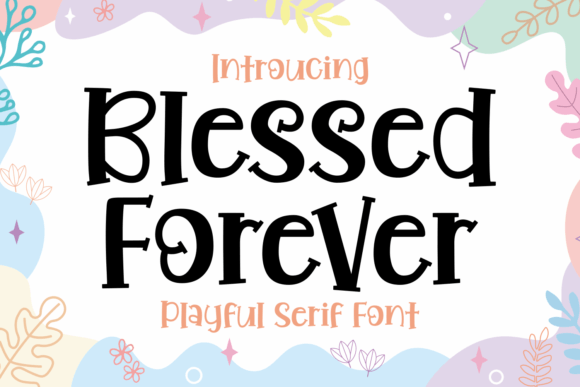
Blessed Forever Font: The Epitome of Playful and Childish Typography
The Blessed Forever Font is a unique and charming typeface that embodies the carefree spirit of childhood. With its rounded edges, bouncy baseline, and slightly tilted letters, this font is reminiscent of a child’s handwriting, evoking feelings of playfulness and excitement. In this article, we’ll explore the characteristics of the Blessed Forever Font, its uses, and why it’s perfect for kids’ projects and whimsical designs.
Characteristics of Blessed Forever Font
The Blessed Forever Font is a playful and childish typeface that boasts several distinctive features. Some of its key characteristics include:
- Rounded Edges: The font’s rounded edges give it a soft and gentle appearance, making it perfect for designs that require a friendly and approachable tone.
- Bouncy Baseline: The bouncy baseline of the font adds to its playful and energetic feel, creating a sense of movement and dynamism.
- Slightly Tilted Letters: The letters in the Blessed Forever Font are slightly tilted, which gives the impression of excitement and playfulness.
Uses of Blessed Forever Font
The Blessed Forever Font is a versatile typeface that can be used in a variety of design projects. Some of its most popular uses include:
- Kids’ Projects: The font’s playful and childish nature makes it perfect for kids’ projects, such as book covers, posters, and educational materials.
- Whimsical Designs: The font’s whimsical and playful feel makes it ideal for designs that require a touch of fantasy and imagination, such as greeting cards, invitations, and packaging.
- Branding and Advertising: The Blessed Forever Font can also be used in branding and advertising campaigns that target children or require a playful and youthful tone.
Why Choose Blessed Forever Font?
There are several reasons why the Blessed Forever Font stands out from other typefaces. Some of its key advantages include:
- Uniqueness: The font’s unique and playful design makes it stand out from more traditional typefaces.
- Legibility: Despite its playful nature, the Blessed Forever Font is highly legible, making it easy to read and understand.
- Versatility: The font’s versatility makes it suitable for a wide range of design projects, from kids’ projects to whimsical designs.
Tips for Using Blessed Forever Font
To get the most out of the Blessed Forever Font, here are some tips to keep in mind:
- Use it for Headings: The font’s playful nature makes it perfect for headings and titles, where it can add a touch of whimsy and excitement.
- Pair it with Other Fonts: The Blessed Forever Font can be paired with other fonts to create a unique and visually appealing design.
- Experiment with Colors: The font’s playful nature makes it perfect for experimenting with bright and bold colors, which can add to its whimsical feel.
The Blessed Forever Font is a unique and charming typeface that embodies the carefree spirit of childhood. With its rounded edges, bouncy baseline, and slightly tilted letters, this font is perfect for kids’ projects and whimsical designs. Its versatility, legibility, and uniqueness make it a great choice for designers looking to add a touch of playfulness and excitement to their designs.
- What is the Blessed Forever Font? The Blessed Forever Font is a playful and childish typeface that features rounded edges, a bouncy baseline, and slightly tilted letters.
- What is the Blessed Forever Font used for? The font is perfect for kids’ projects, whimsical designs, branding, and advertising campaigns that require a playful and youthful tone.
- Is the Blessed Forever Font legible? Yes, despite its playful nature, the Blessed Forever Font is highly legible, making it easy to read and understand.